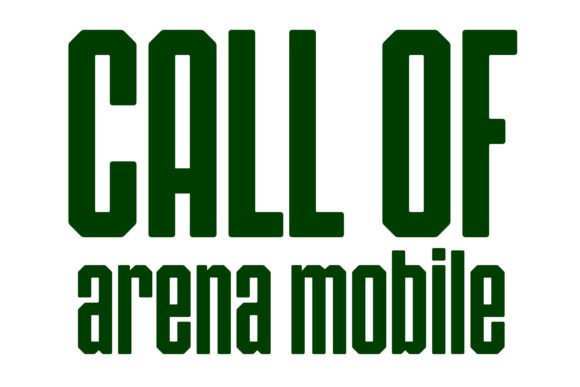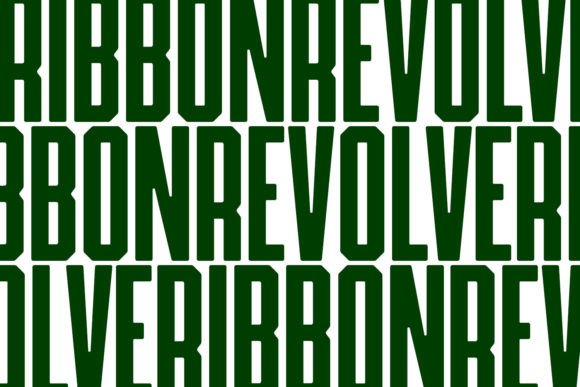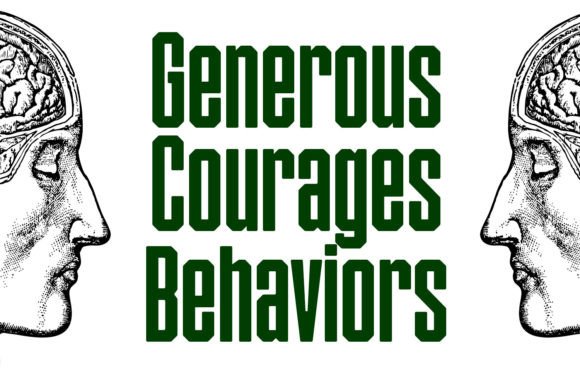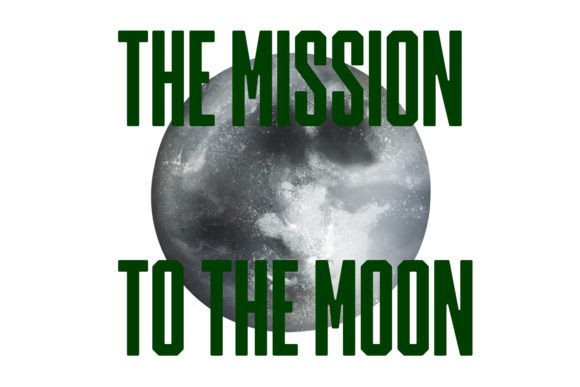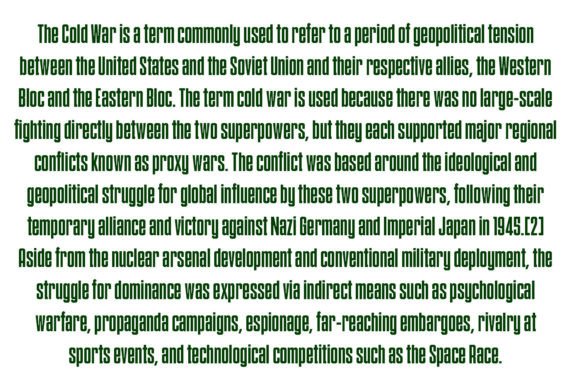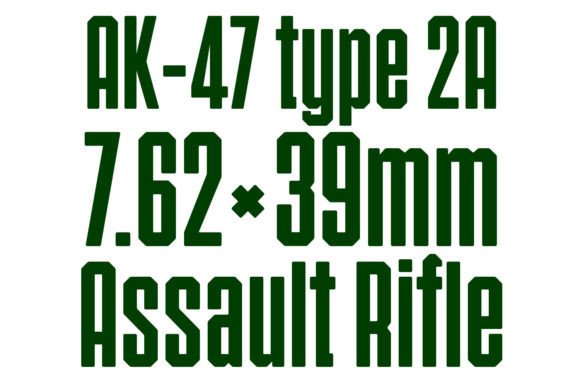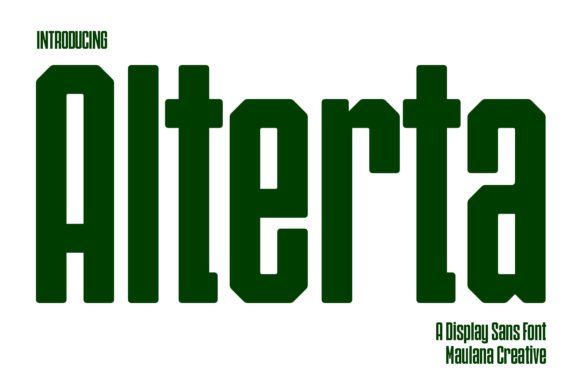
Introducing Alterta Font: The Modern and Fun Sans Serif Display Font
Are you looking for a font that can add a touch of modernity and fun to your designs? Look no further than Alterta Font! This trendy and stylish sans serif display font is perfect for designers and crafters who want to elevate their creations and make them stand out.
What is Alterta Font?
Alterta Font is a modern sans serif display font that is designed to be both fun and stylish. Its clean and simple lines make it perfect for use in a variety of design projects, from posters and flyers to social media graphics and website headers.
Key Features of Alterta Font
- Modern and Fun Design: Alterta Font has a unique and playful design that is sure to grab attention.
- Sans Serif Style: The font’s sans serif style gives it a clean and modern look that is perfect for contemporary designs.
- Trendy and Stylish: Alterta Font is designed to be trendy and stylish, making it perfect for designers who want to create modern and eye-catching designs.
- High-Quality Design: The font is designed with high-quality craftsmanship, ensuring that it looks great in any design project.
Uses of Alterta Font
Alterta Font is a versatile font that can be used in a variety of design projects, including:
- Posters and Flyers: Use Alterta Font to create eye-catching posters and flyers that grab attention.
- Social Media Graphics: The font is perfect for use in social media graphics, such as Facebook and Instagram posts.
- Website Headers: Use Alterta Font to create stylish and modern website headers that set the tone for your website.
- Branding and Identity: The font can be used in branding and identity projects, such as logos and business cards.
Benefits of Using Alterta Font
There are many benefits to using Alterta Font in your design projects, including:
- Unique and Eye-Catching Designs: Alterta Font helps you create unique and eye-catching designs that stand out from the crowd.
- Modern and Trendy Look: The font gives your designs a modern and trendy look that is perfect for contemporary designs.
- Easy to Read: Alterta Font is easy to read, making it perfect for use in body text and other applications where readability is important.
- Customizable: The font is customizable, allowing you to adjust the size, color, and style to fit your design needs.
Tips for Using Alterta Font
Here are some tips for using Alterta Font in your design projects:
- Use it as a Display Font: Alterta Font is designed to be used as a display font, so use it to create eye-catching headlines and titles.
- Experiment with Colors: The font looks great in a variety of colors, so experiment with different colors to find the one that works best for your design.
- Pair it with Other Fonts: Alterta Font pairs well with other fonts, so try pairing it with a serif font for a contrasting look.
In conclusion, Alterta Font is a modern and fun sans serif display font that is perfect for designers and crafters who want to elevate their creations. With its trendy and stylish design, high-quality craftsmanship, and versatility, Alterta Font is a great choice for a variety of design projects. Whether you’re creating posters, social media graphics, or website headers, Alterta Font is sure to help you create unique and eye-catching designs that stand out from the crowd.